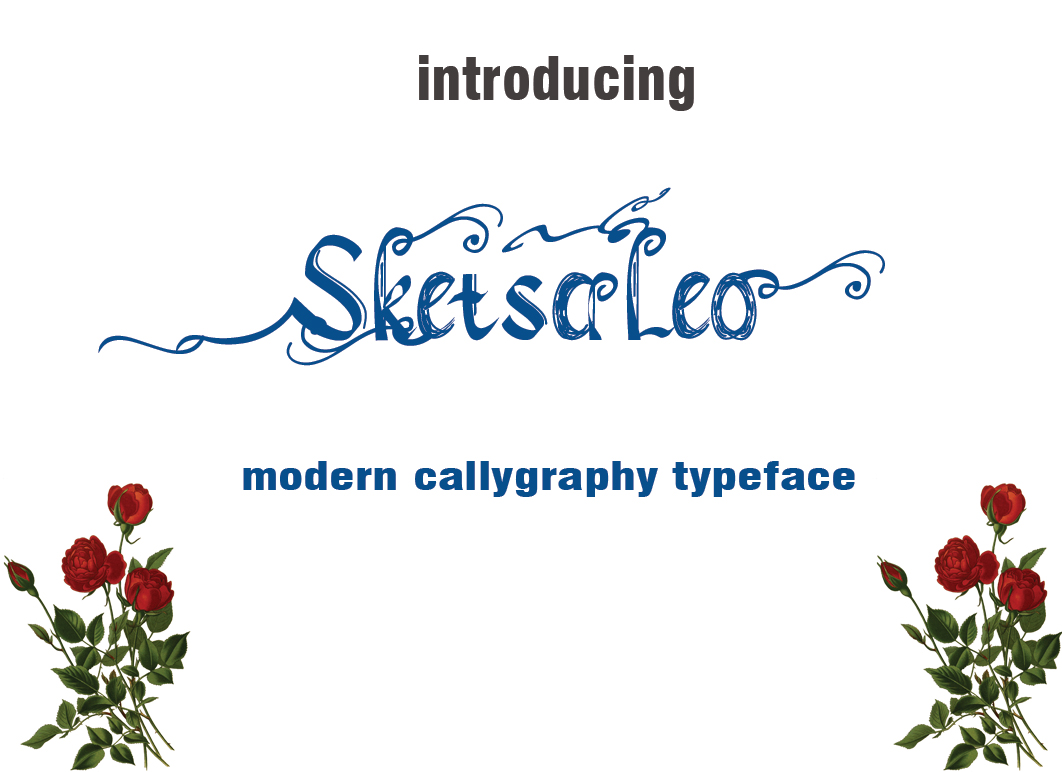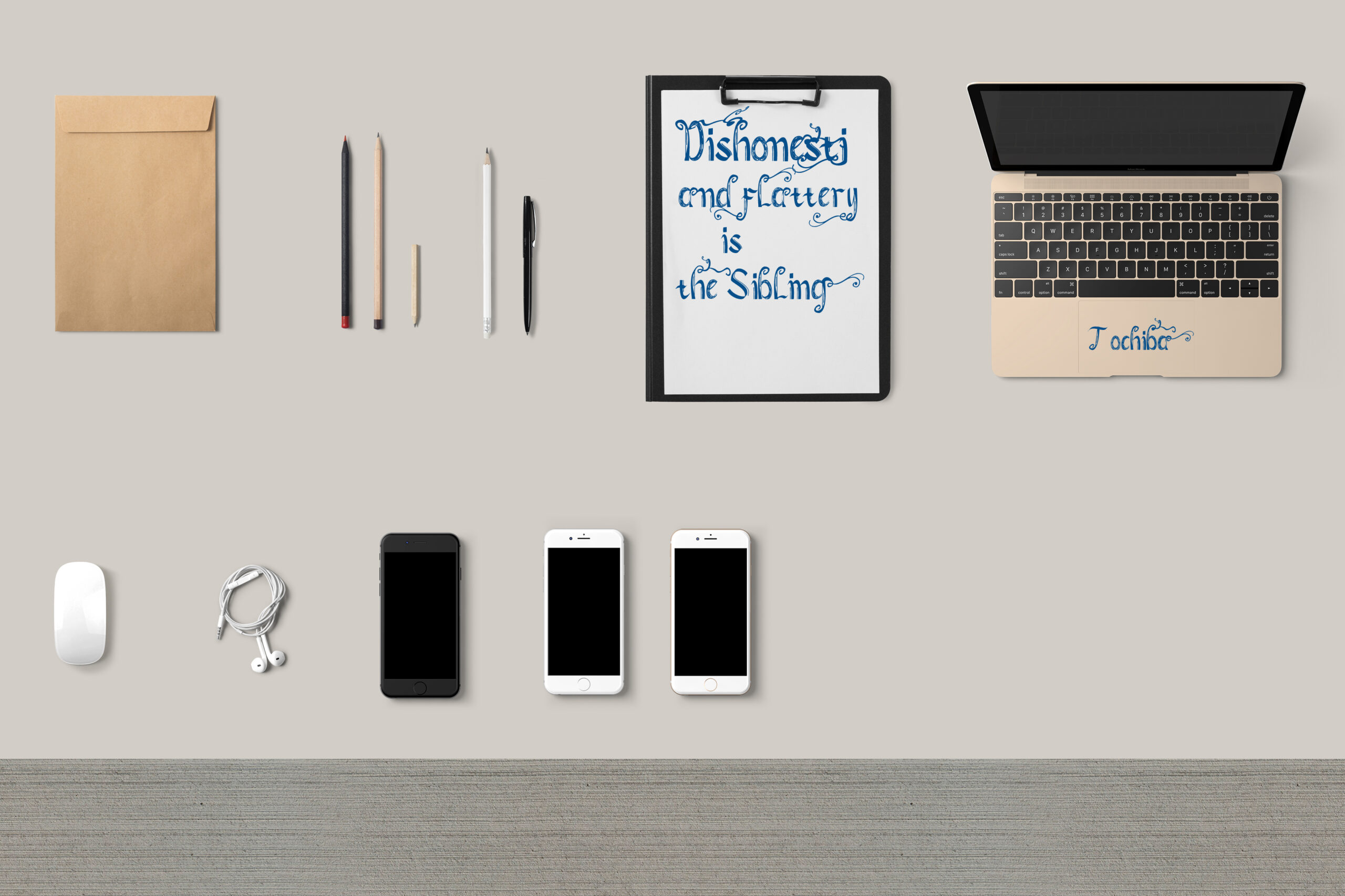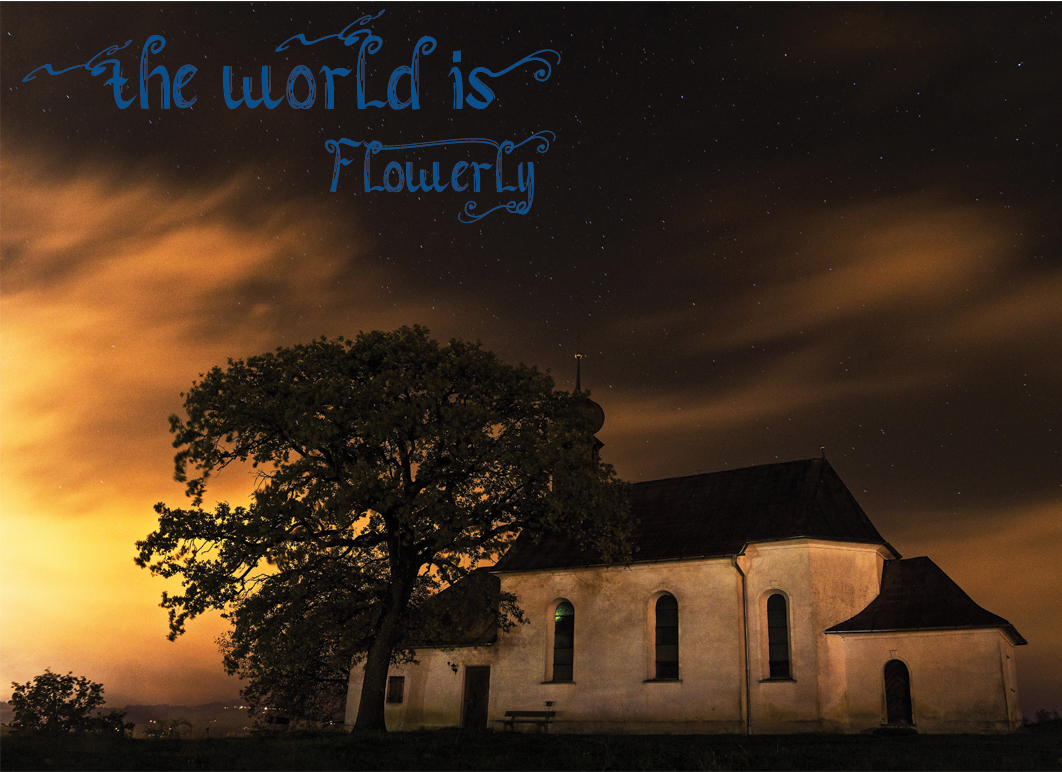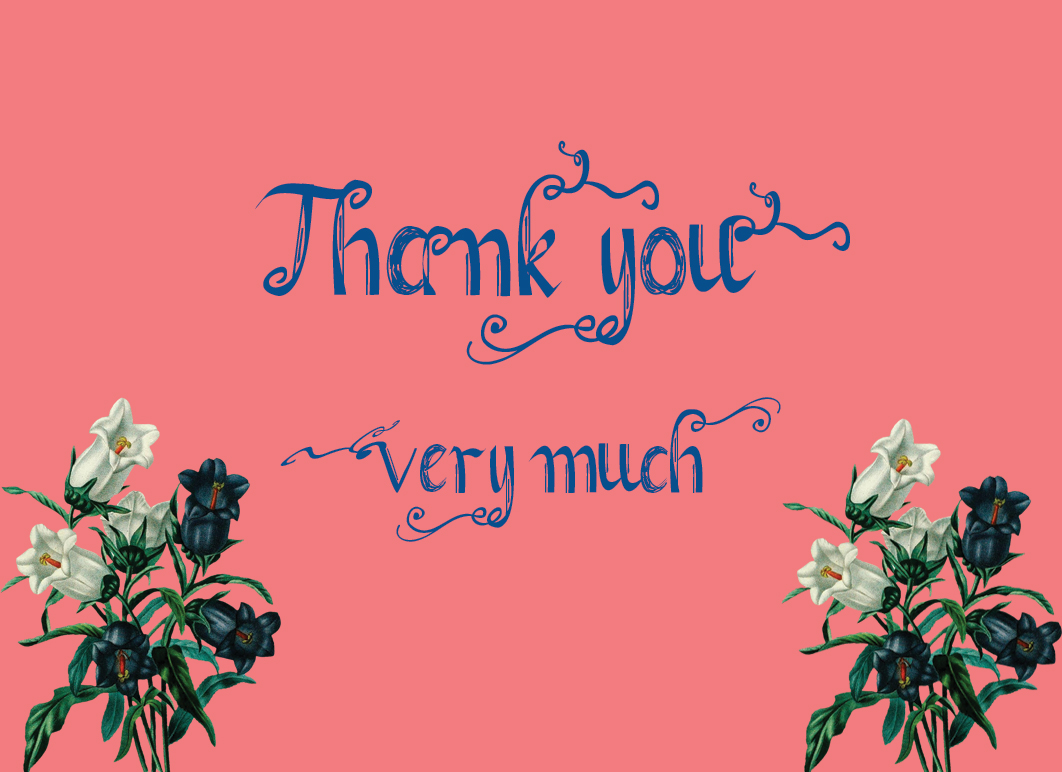
HomeScript FontsSketsa Leo Font Script Fonts Sketsa Leo Font FacebookXPinterestWhatsApp Sketsa Leo Font Poster 2 Sketsa Leo Font Poster 3 Sketsa Leo Font Poster 4 Sketsa Leo Font Poster 5 About Sketsa Leo Font Sketsa Leo is a modern calligraphy Script font created by hand. DOWNLOAD NOW People also explored Balloon Valentine Bridezilla Wedding Font Darling Font Manolo Black Font Midnight Font Brandogram Medium Monogram Typeface Font Bellinda Font Timothy Font Garnite Font 391 0 TagsSketsa Leo Font Previous articleRaihan FontNext articleBregede Love Font LEAVE A REPLY Cancel reply Comment: Please enter your comment! Name:* Please enter your name here Email:* You have entered an incorrect email address! Please enter your email address here Website: Save my name, email, and website in this browser for the next time I comment. Personal Use Free Bellarin Personal Use Free Read more about this font Rellista Script Personal Use Free Read more about this font Kensin Personal Use Free Read more about this font Eva Personal Use Free Read more about this font BLOG How to Cut Any Font on Cricut: Convert a Font to SVG (Free) Turn any font into a clean SVG so it cuts crisp on Cricut - a quick 3-step workflow using a free font-to-SVG tool. To increase your work productivity, choose the most readable fonts. Free Fonts Risk: Why Free Fonts Can Be Dangerous for Designers Free vs Paid Fonts: Why Investing in Premium Fonts Is Worth It